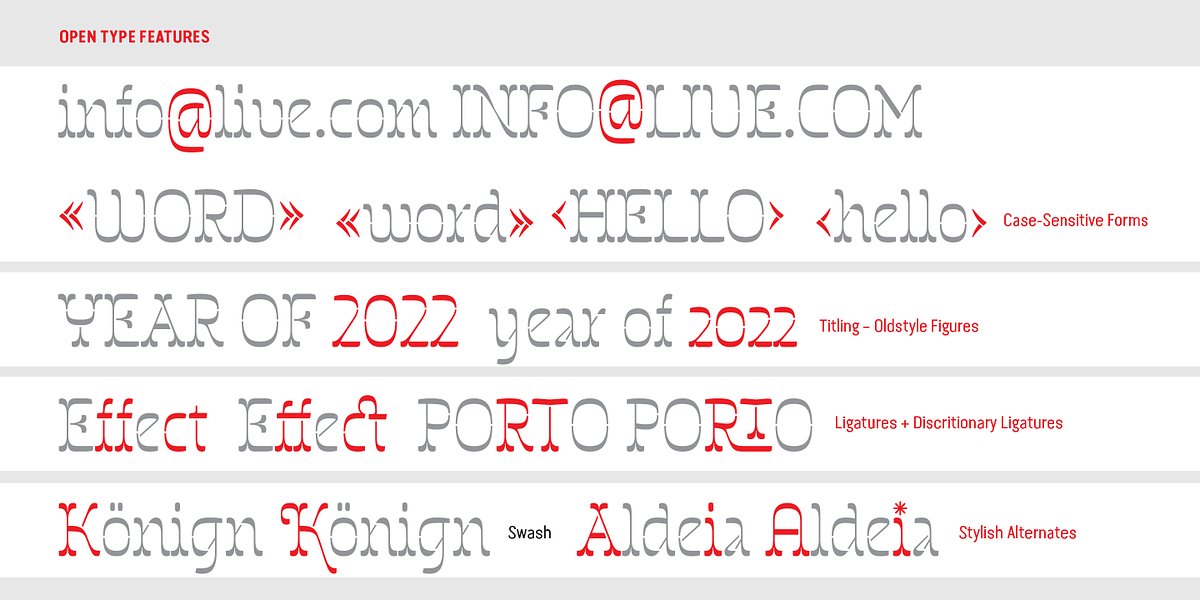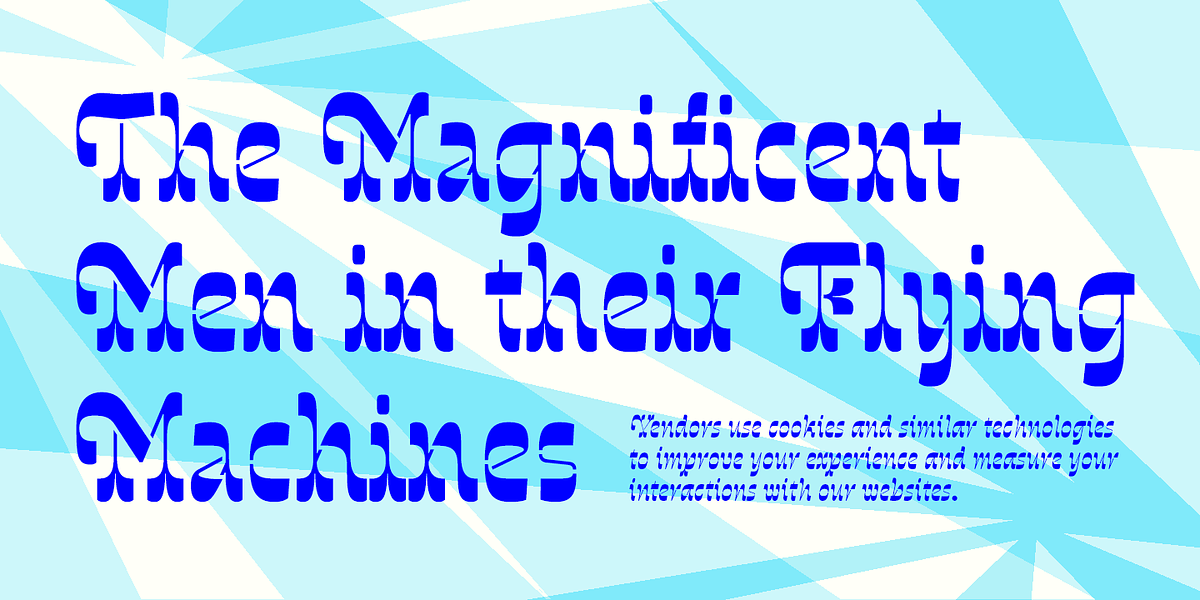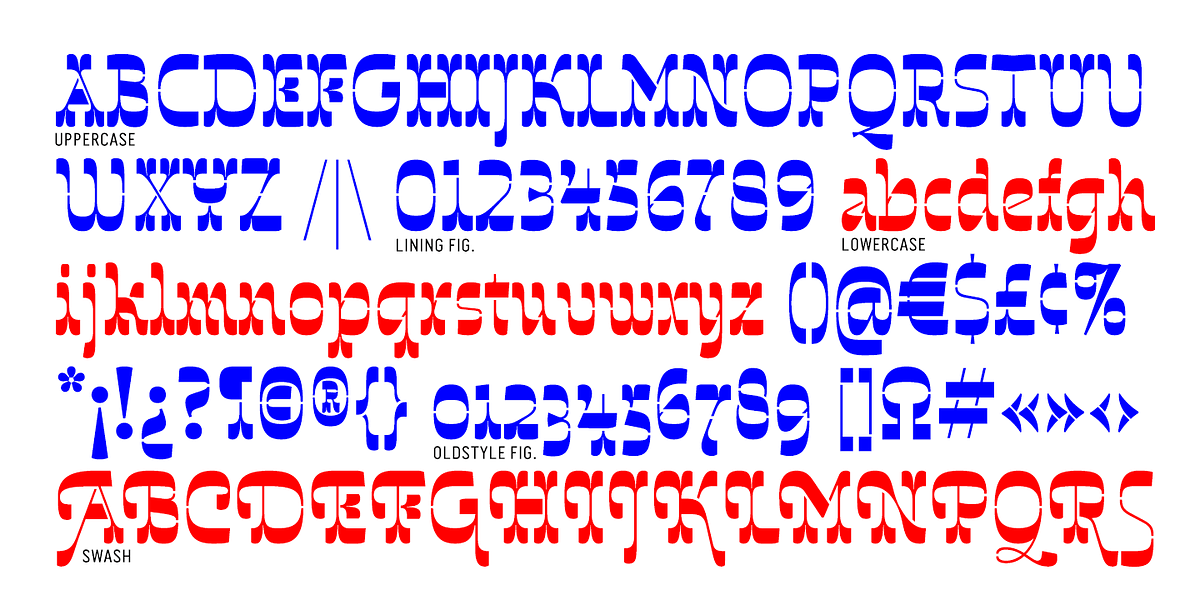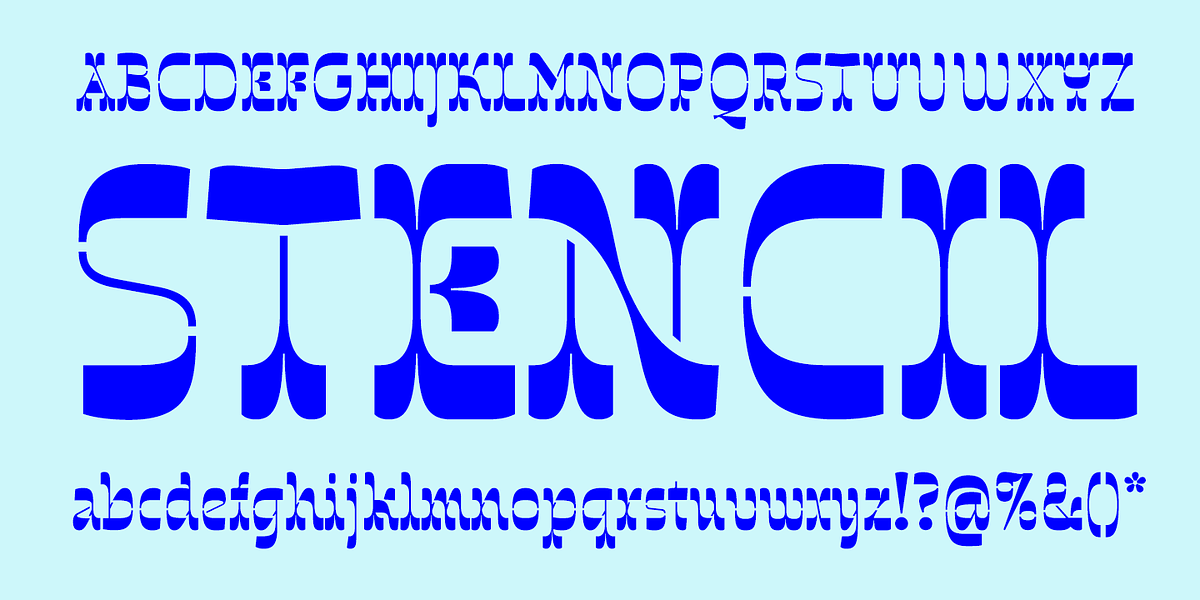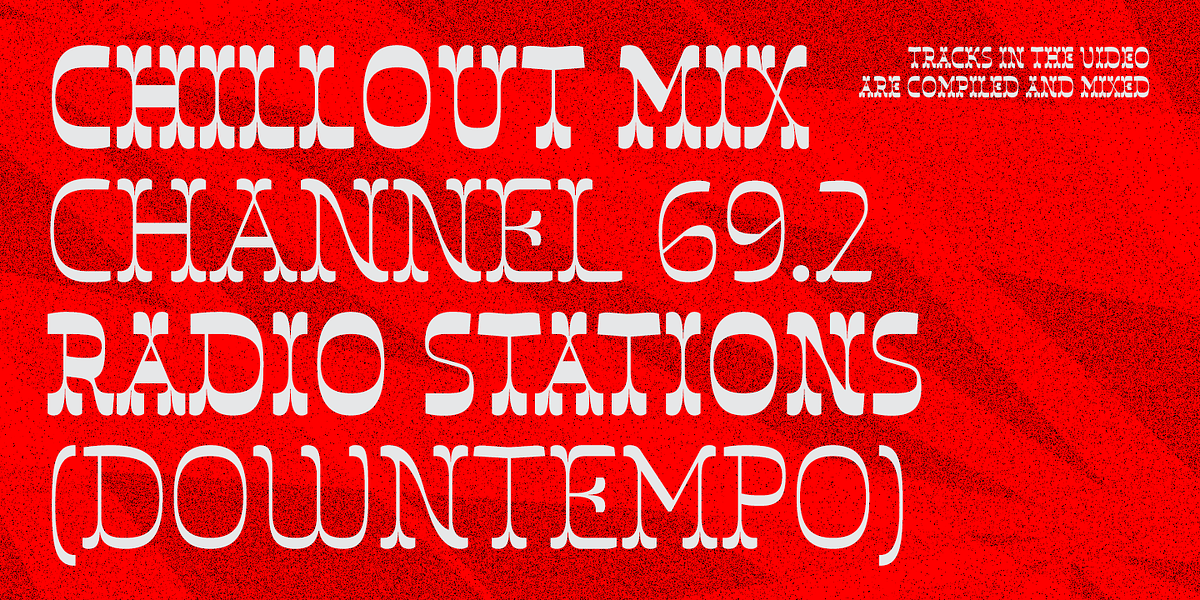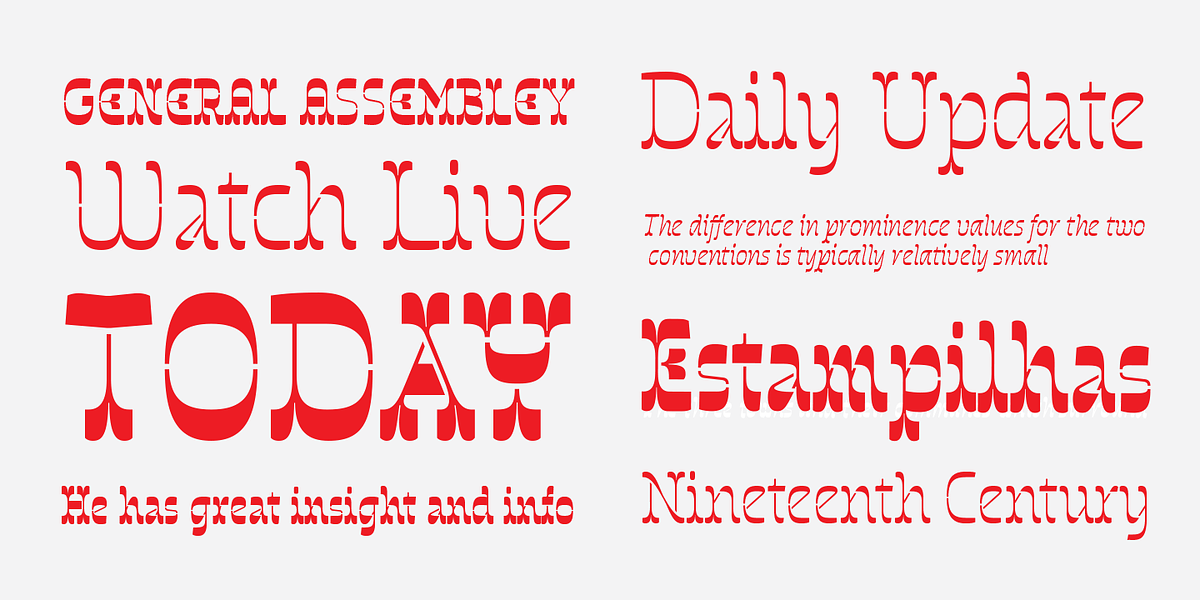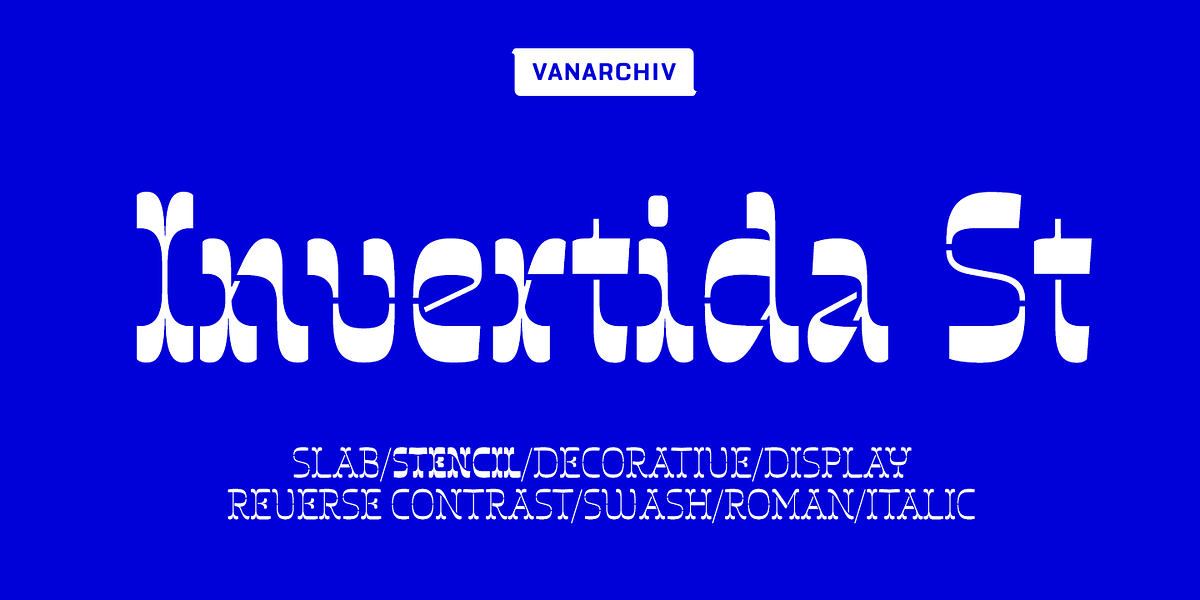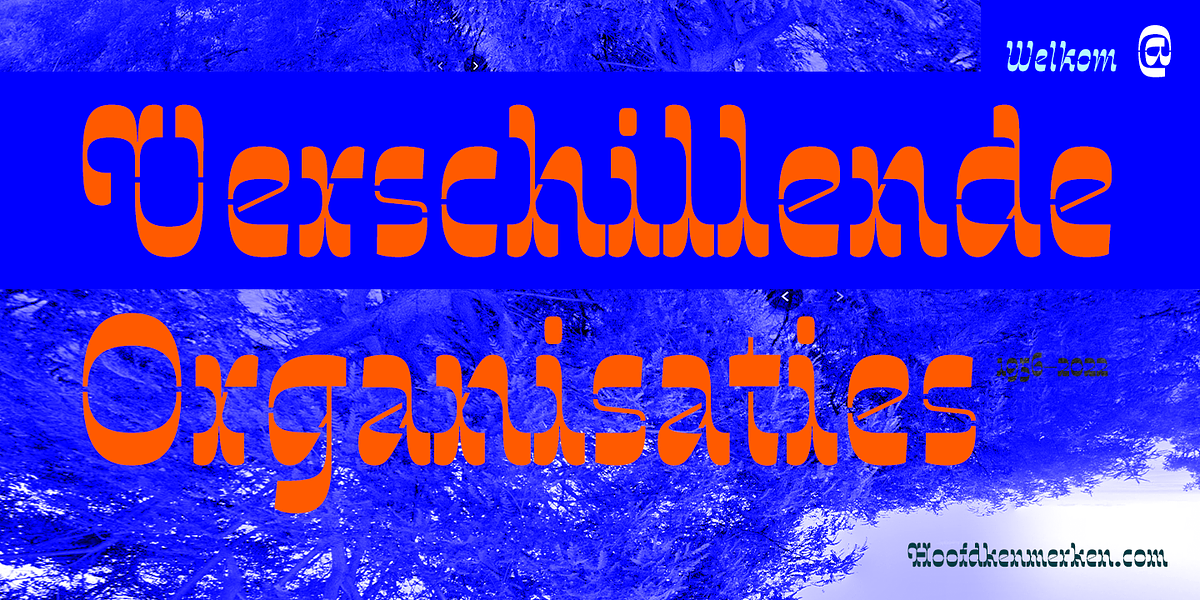
Invertida St
This typeface is a geometric slab serif with a distinctive reverse contrast design. Its style evokes the aesthetic of old western signage and typography. The font includes support for both Latin and Cyrillic characters and offers italic variations. OpenType features like stylistic alternates, ligatures, swashes, and figures provide further customization options.